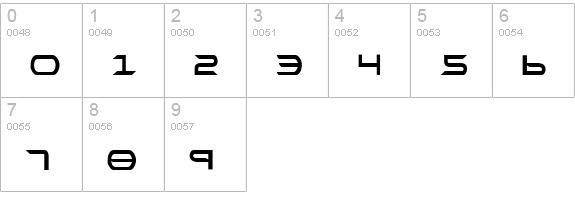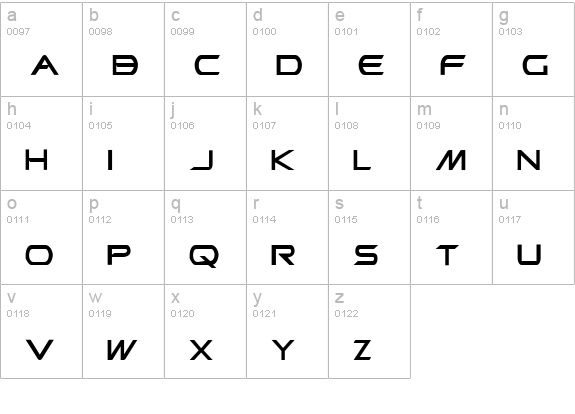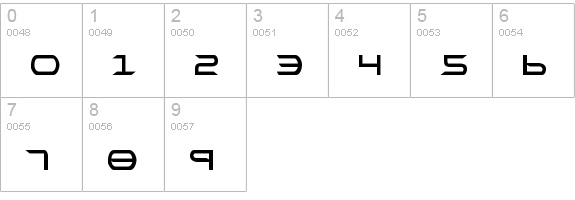
Promethean font is a modern and sleek typeface that exudes a sense of sophistication and elegance. With its clean lines and balanced proportions, this font is perfect for a wide range of design projects, from branding to editorial layouts. The Promethean font is versatile and can easily adapt to various styles and themes, making it a valuable addition to any designer's toolkit. What sets Promethean font apart is not only its visual appeal but also the fact that it is available for free. That's right – you can freely download the Promethean font at FontsMarket.com and start using it in your projects right away. Whether you're working on a logo, a website design, or a print publication, this font will help you achieve a polished and professional look. Don't miss out on the opportunity to enhance your designs with the stylish and versatile Promethean font – download it for free today!